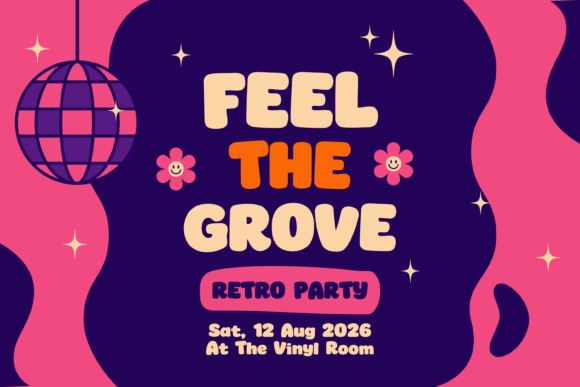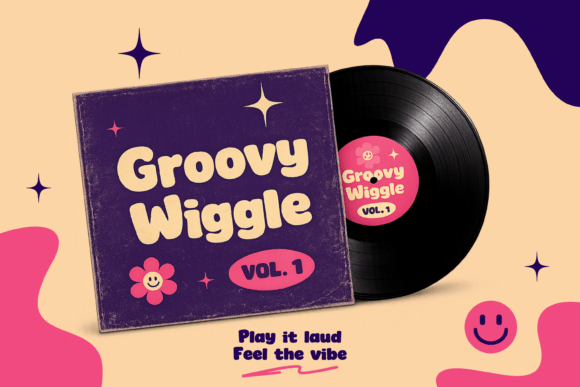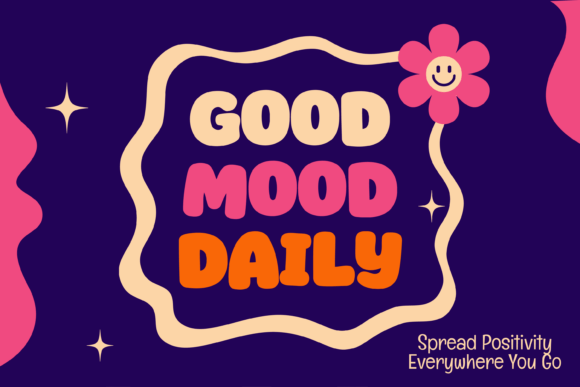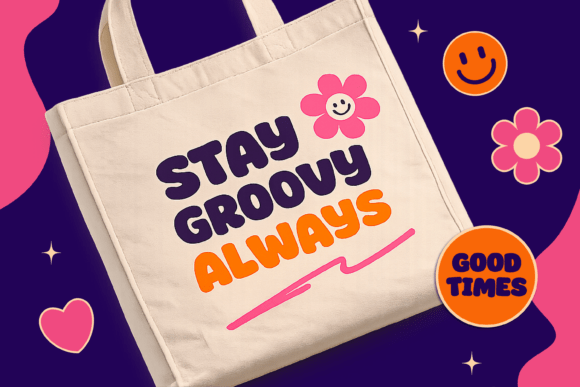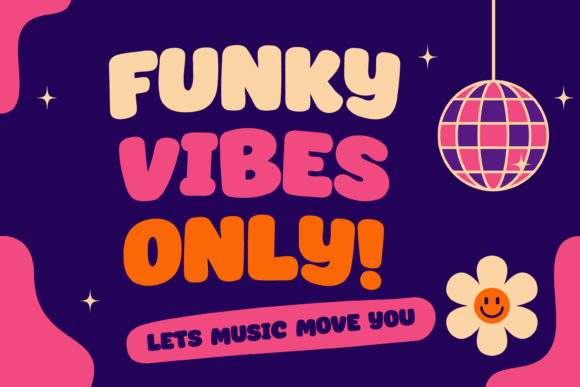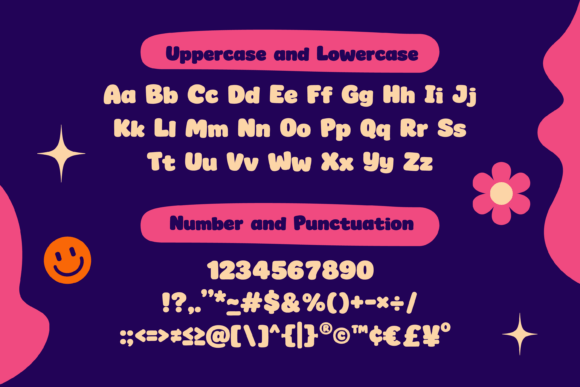
The Font that Brings the Fun
Have you ever stumbled upon a font that instantly transports you to a world of colorful memories and joyful vibes? For designers and creatives, finding the perfect font can be a game-changer, and today, we’re shining the spotlight on a true showstopper: the Groovy Wiggle Font.
This playful display font is a masterclass in retro-cool design, with thick rounded characters and bouncy letterforms that scream fun and personality. Whether you’re working on a kids’ brand, a social media campaign, or a quirky merchandise project, the Groovy Wiggle Font is the perfect companion to bring your creative vision to life. Its soft curves and quirky charm make it a valuable addition to any designer’s toolkit, guaranteed to inject energy and happiness into your typography.
- Unique Characteristics: Groovy Wiggle Font features a wavy, hand-drawn design with a funky, retro vibe, perfect for creating eye-catching graphics and designs
Designer Review: Groovy Wiggle Font
Overall, I’m feeling pretty groovy about the Groovy Wiggle Font, but like any design element, it’s got its strengths and weaknesses. ✨ Here’s what I love:
- Unique Character: The Groovy Wiggle Font has a distinct, quirky feel that’s sure to grab attention and add some personality to your designs.
- Flexibility: With a range of weights and styles available, you can customize this font to fit any project or brand aesthetic.
- Fun and Playful: The font’s wiggly lines and irregular shapes evoke a sense of fun and playfulness, making it perfect for creative projects or campaigns targeting a younger audience.
Now, onto the not-so-groovy aspects: ⚠️
- Limited Legibility: In some cases, the font’s irregular shapes and wavy lines can make it difficult to read, especially in smaller sizes or at a distance.
- Overuse Potential: While the font’s unique style is a strength, it can also be a weakness if overused. Be sure to balance it with more traditional fonts to avoid visual fatigue.
- Lack of Formality: The font’s playful vibe may not be suitable for formal or professional projects, so be mindful of your audience and purpose.
Overall, the Groovy Wiggle Font is a solid choice for designers looking to add some personality and whimsy to their projects. With its unique character and flexibility, it’s a great addition to any design toolkit. Just be mindful of its limitations and use it wisely.
The Groovy Wiggle Font is perfect for:
- Creating playful and eye-catching graphics.
- Adding a touch of whimsy to presentations and documents.
- Designing children’s books and educational materials.